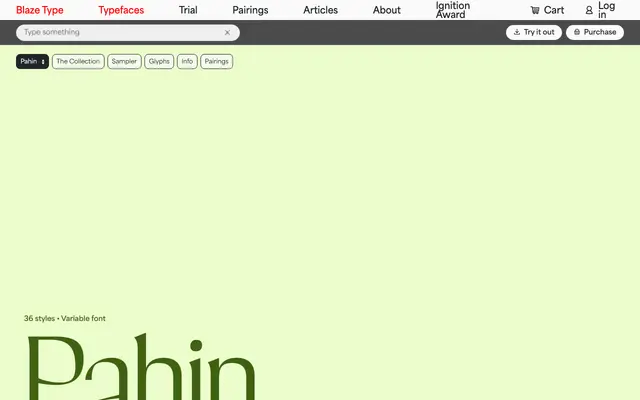
Pahin specimen from Blaze Type
A variable sans in three optical families spanning Text, Normal and Display, covering 36 styles from Extralight to Black across all three subfamilies.
Structured as three distinct optical families, Pahin separates its Text, Normal and Display cuts to suit different size ranges and typographic contexts. Each subfamily runs through six weights from Extralight to Black with matching italics, giving 36 static styles in total alongside a variable font. The optical differentiation makes it practical for publications or digital products that need a single typeface family to perform across body copy and headline sizes.
The three-family structure spanning Text, Normal and Display optical sizes, combined with the warm rhythm visible in the sample text, suggests a humanist sans orientation designed for sustained reading as well as headline use.